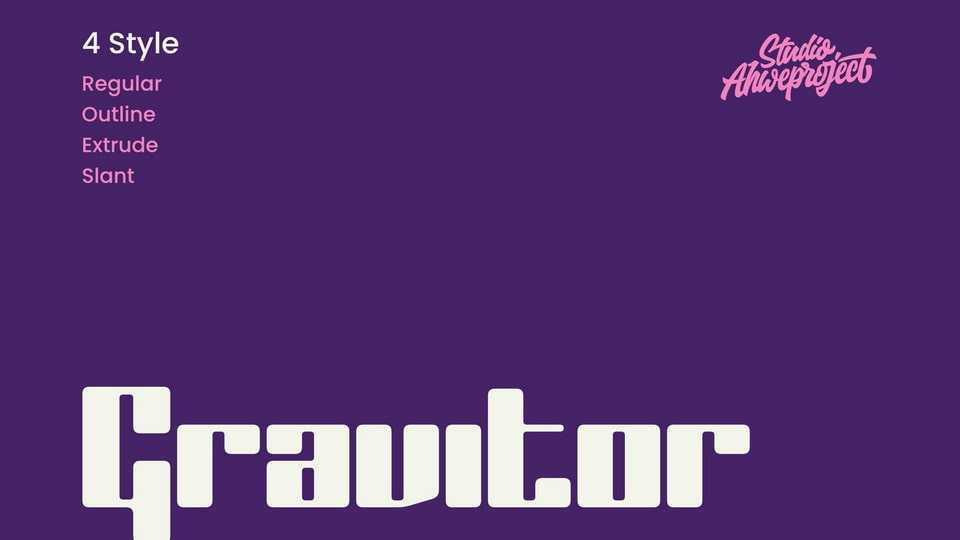
Download Gravitor font, a bold, geometric typeface with a futuristic and modern feel. Its design features blocky, squared letters with clean edges and smooth curves.